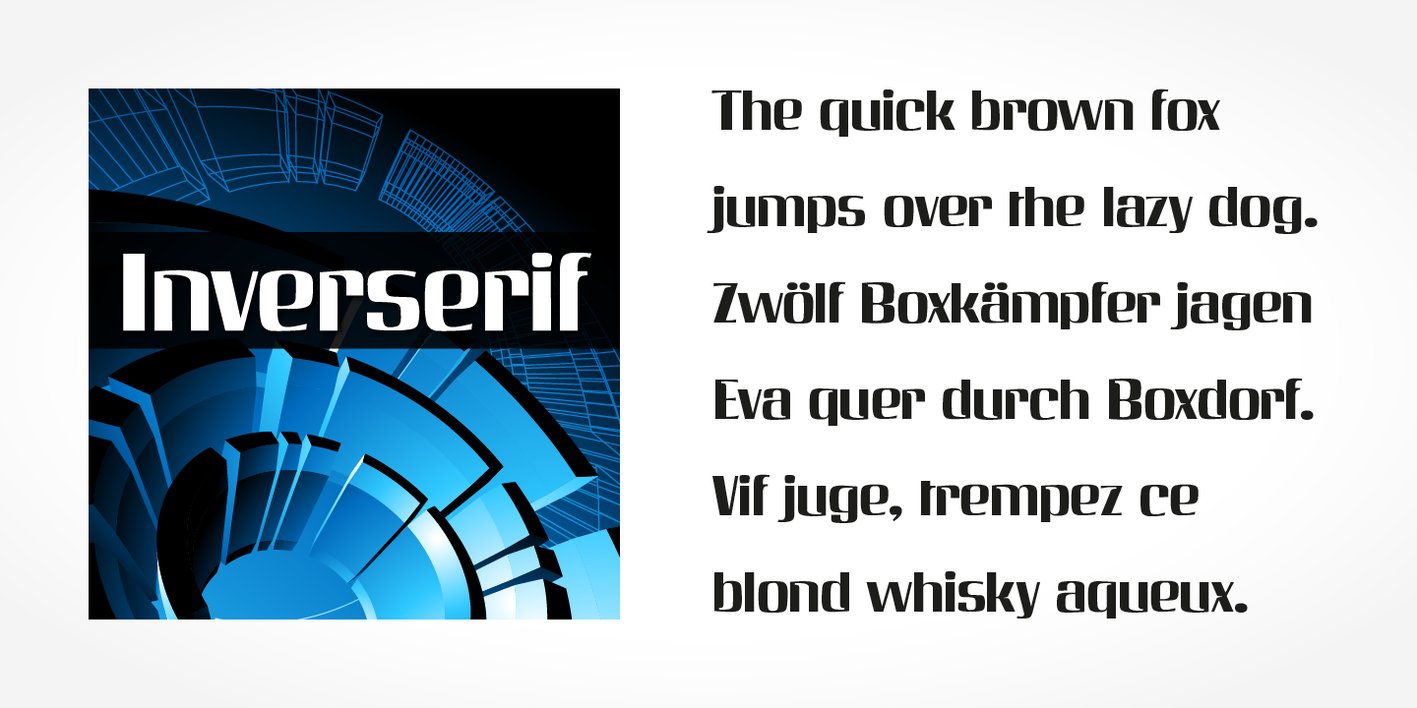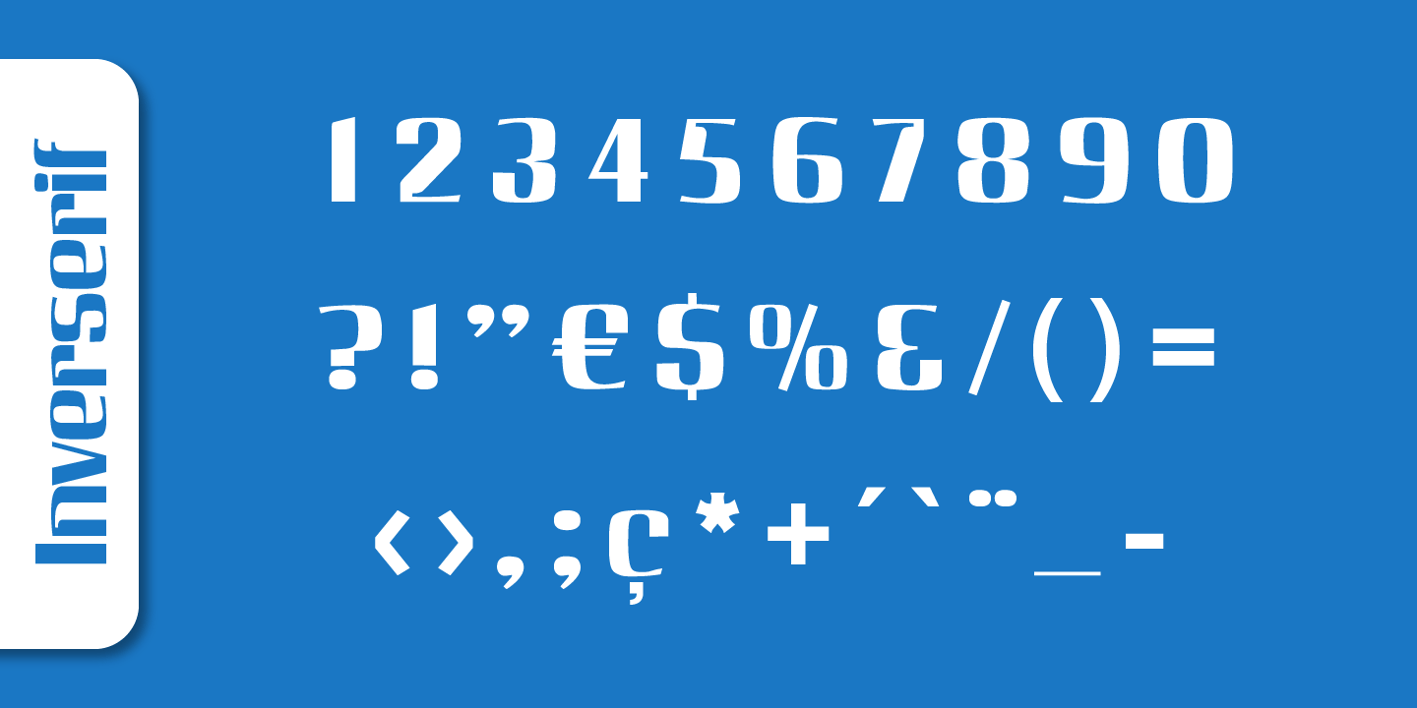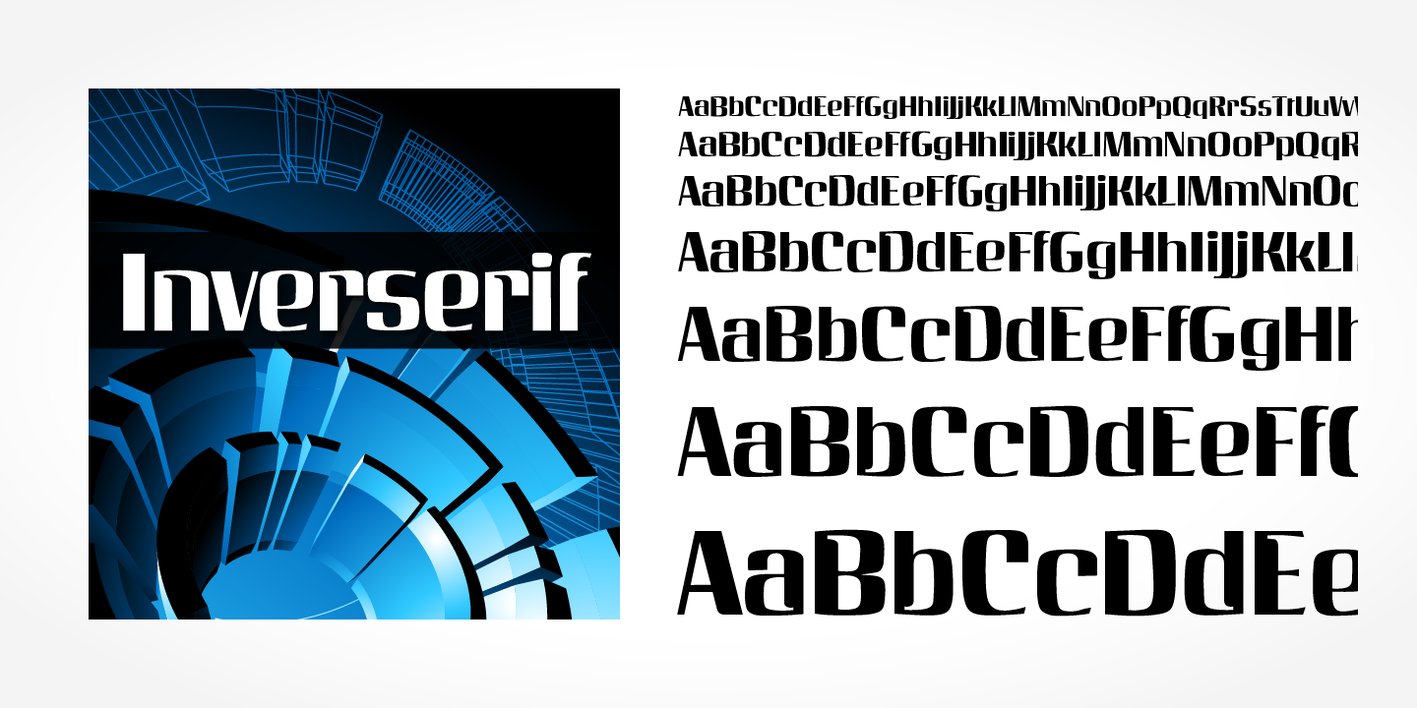
Inverserif Font
Inverserif Font is perfect for avant-garde design projects, experimental typography, contemporary art exhibitions, modern architectural presentations, innovative branding campaigns, cutting-edge magazine layouts, creative agency portfolios, unconventional poster designs, artistic book covers, progressive web design, conceptual art projects, and forward-thinking projects that require distinctive, reverse-contrast typography with experimental sophistication.
What makes Inverserif Font so exciting is its revolutionary approach to traditional serif construction that challenges conventional typography rules by inverting classic serif characteristics to create stunning visual tension and contemporary edge. This typeface features innovative letterforms with reversed serif stress and unconventional weight distribution that creates immediate visual interest and establishes a bold, artistic statement. The font's experimental character and avant-garde appeal make it perfect for creative professionals who want to push boundaries and communicate innovation through truly distinctive typography.
Inverserif Font typically comes in multiple weights and styles including Light, Regular, Medium, Bold, and Black variations. Many versions also include experimental alternates, artistic ligatures, and unconventional character variations that enhance the font's avant-garde functionality and provide designers with comprehensive tools for creating boundary-pushing, artistically sophisticated typography compositions that challenge expectations.
Whether you're designing contemporary art materials, innovative brand identity, or experimental publications, Inverserif Font delivers unmatched artistic impact and typographic innovation that connects with audiences who appreciate creative risk-taking and design experimentation. Its unconventional approach works exceptionally well in large display applications where its reversed characteristics can create maximum visual drama and artistic statement.
The ingeniously crafted letterforms of Inverserif Font showcase the ultimate expression of experimental typography and artistic design principles. Each character has been meticulously engineered to challenge traditional serif conventions while maintaining excellent readability, ensuring that your artistic communications remain accessible while delivering the revolutionary visual impact that makes contemporary design truly memorable and culturally significant.